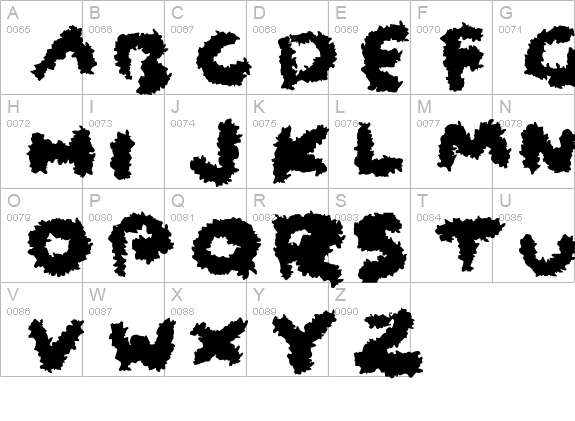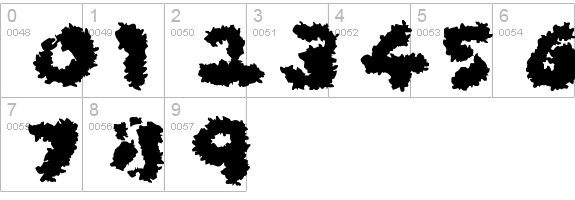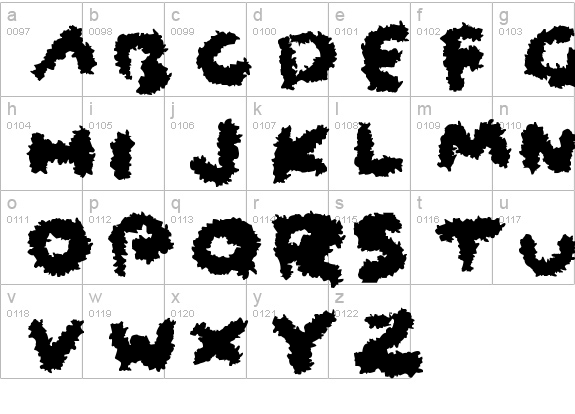
Coarse Fuzz Font Details
Coarse Fuzz is a free for personal use font in the Script category, designed by Darrell Flood. It has been downloaded 47 times and is available for Windows, Mac and Linux.
Coarse Fuzz font is a unique and eye-catching typeface that adds a touch of edginess and character to any design project. Its rugged and textured appearance gives off a raw and unrefined vibe, perfect for making a bold statement. This font is ideal for projects that require a rough and gritty look, such as posters, album covers, and branding materials.